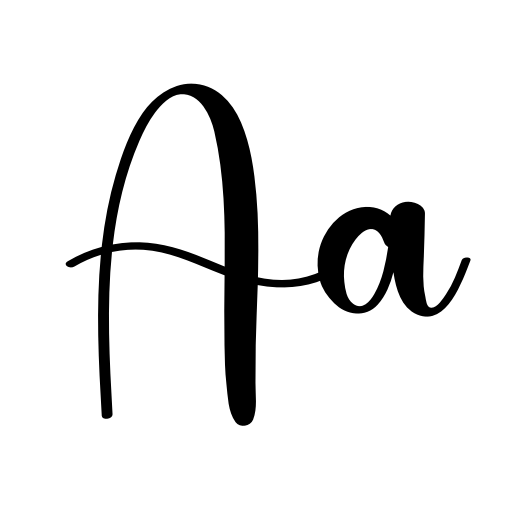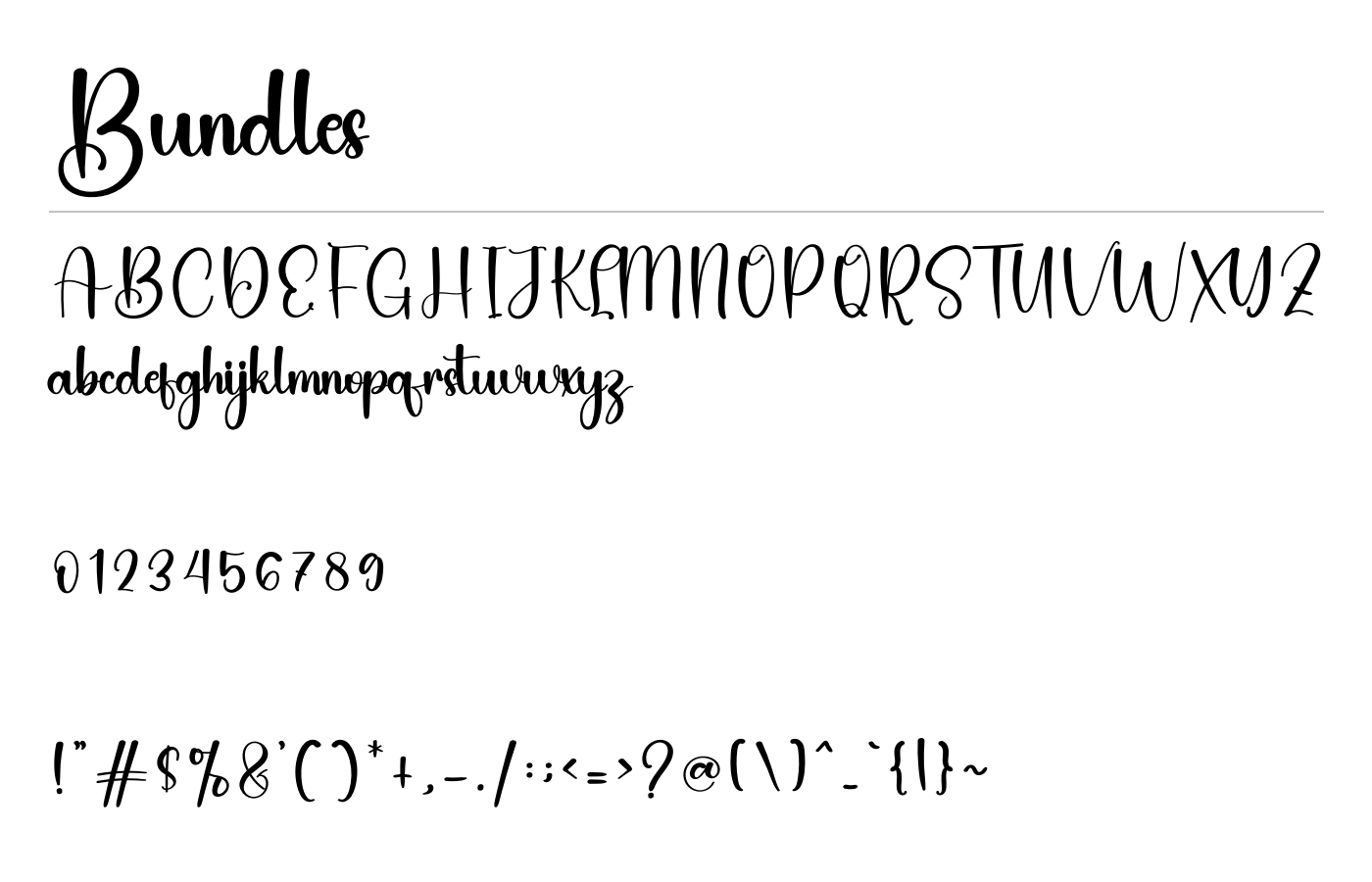
Bundles is a charming handwritten script font with a lively and casual feel, featuring smooth, flowing strokes and playful curves. Its mix of thin and slightly thicker lines creates a warm, friendly vibe, making it perfect for creative projects like greeting cards, branding, and social media graphics. This font's unique style adds personality and approachability to any design needing a personal, handcrafted touch.
Bundles Font